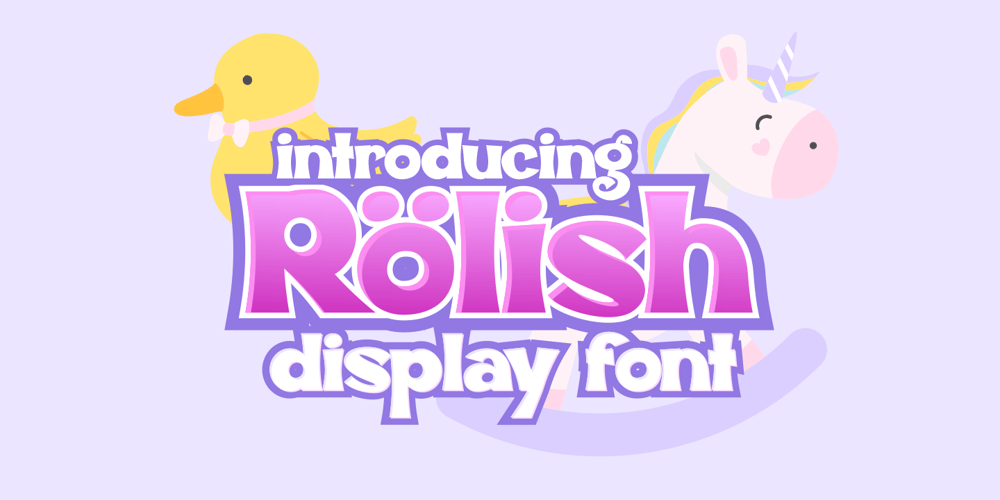
Rolish Font Family was designed by Raditya Putra Pratama and published by Raditya Type. Rolish contains 1 styles and family package options. Rolish Font is a Cheerful Child Look Font, designed for Titles, Headings, Texts and more at your project. It is ready with its unique style. The Rolish font is an ideal type for display, game titles, text, print, branding, signage as well as for user interfaces, mobile devices, especially web design creation, with the optimal set of characters for your designs in any layout.